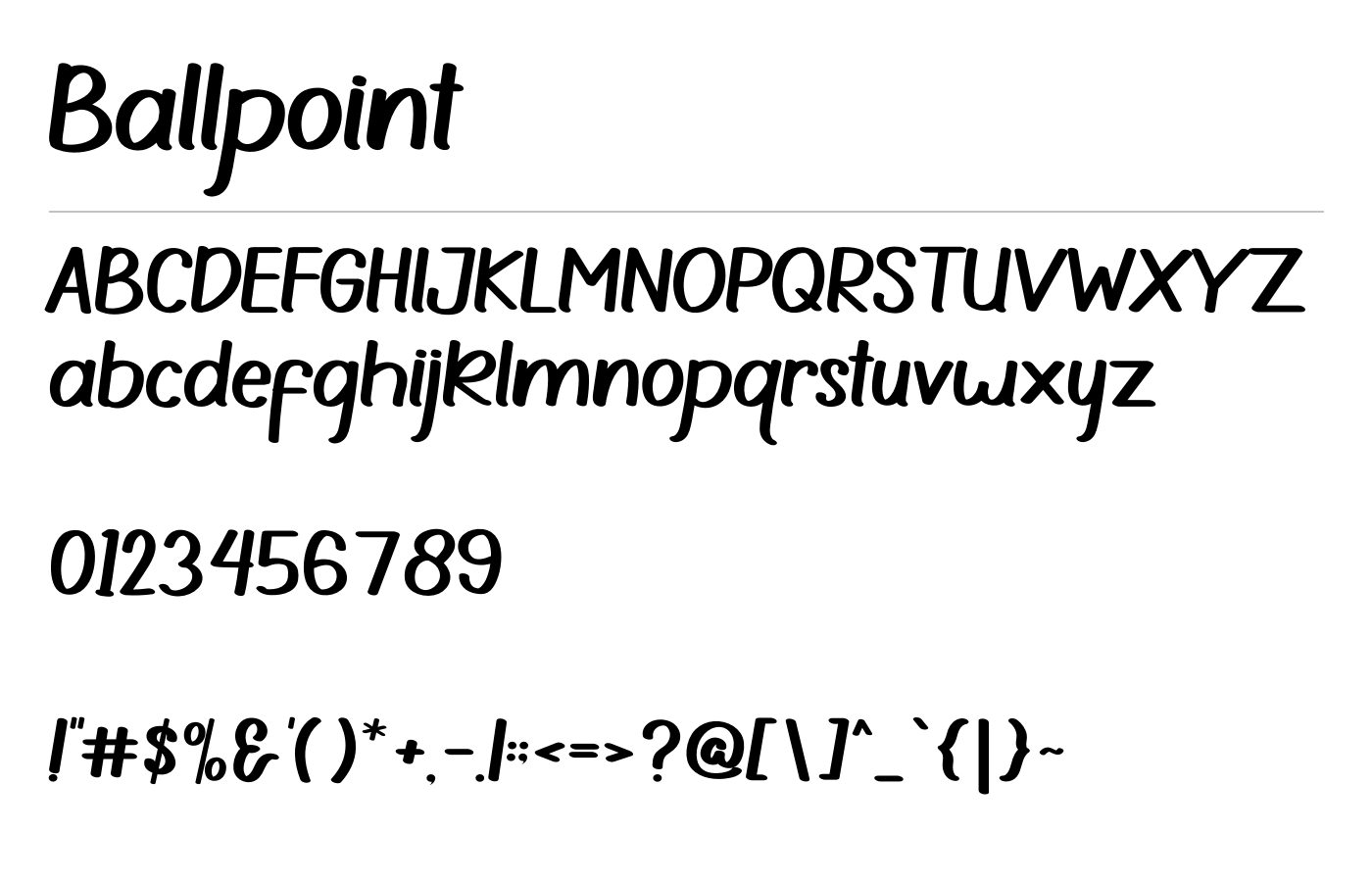
Ballpoint is a casual sans serif font with a lively, handwritten feel that mimics the smooth flow of writing with a ballpoint pen. Its slightly condensed letterforms, medium weight, and moderate contrast create an approachable and friendly style ideal for informal branding, playful editorial work, and fun packaging. This font works well for headlines and display uses where a personal, warm touch is desired.
Ballpoint Font